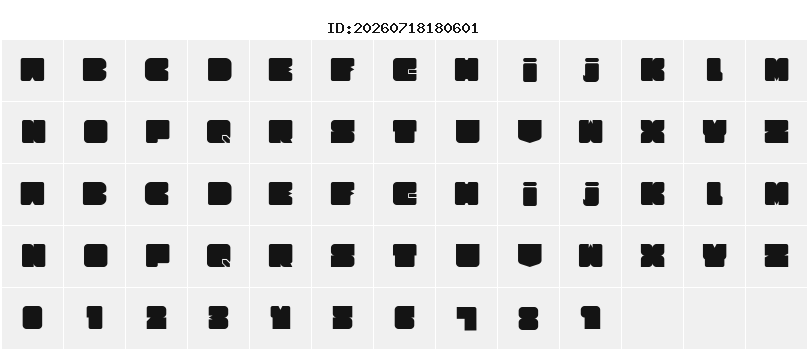
Cubesity Rounded Preview
• Font Name: Cubesity Rounded
• Full Font Name: Cubesity Rounded
• PostScript Name: CubesityRounded
• Designer: Pelayo Rodríguez
• Manufacturer: Pelayo Rodríguez
About Cubesity Rounded.ttf
Cubesity Rounded.ttf is a modern, elegant sans-serif font designed for ultimate readability and visual harmony. Perfect for branding, headlines, web design, and print materials.